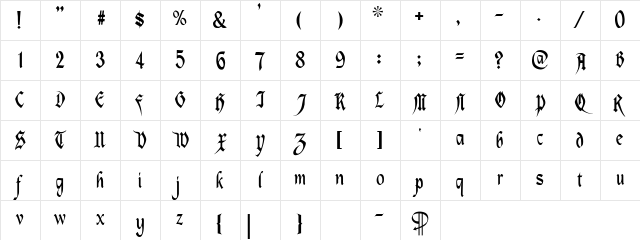
Magdelena Regular
Foundry: David F. Nalle - Scriptorium Font Library
Design Context for Magdelena
Magdelena is a composed and adaptable typeface that performs quietly and consistently across a wide range of design contexts.